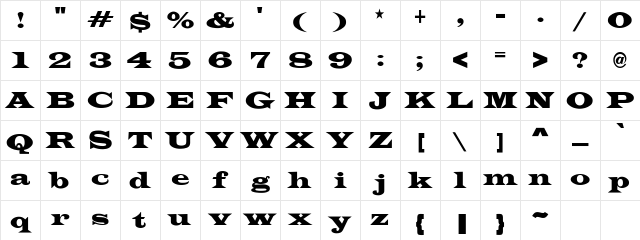
LatinWideCnd-No Regular
Design Context for LatinWideCnd-No
LatinWideCnd-No is a composed and adaptable typeface that performs quietly and consistently across a wide range of design contexts.